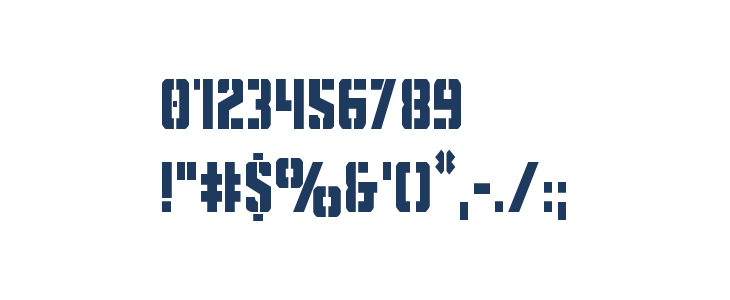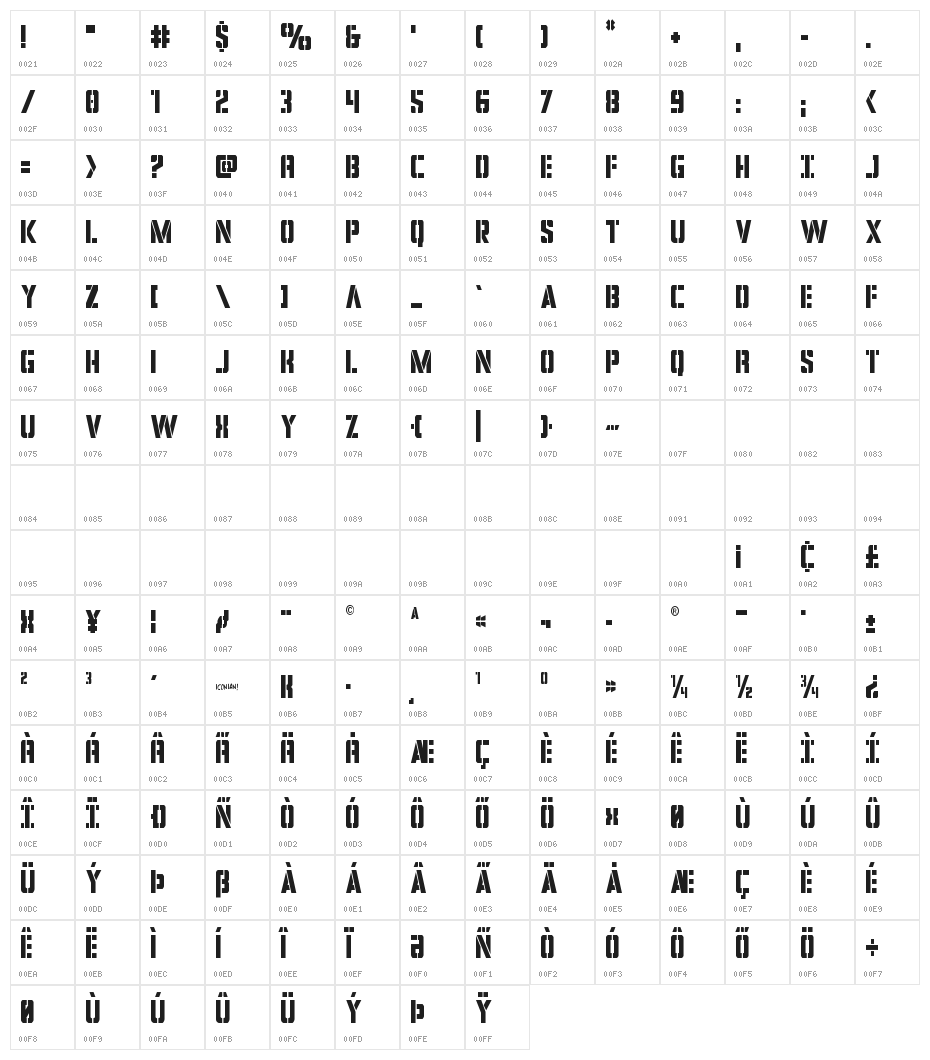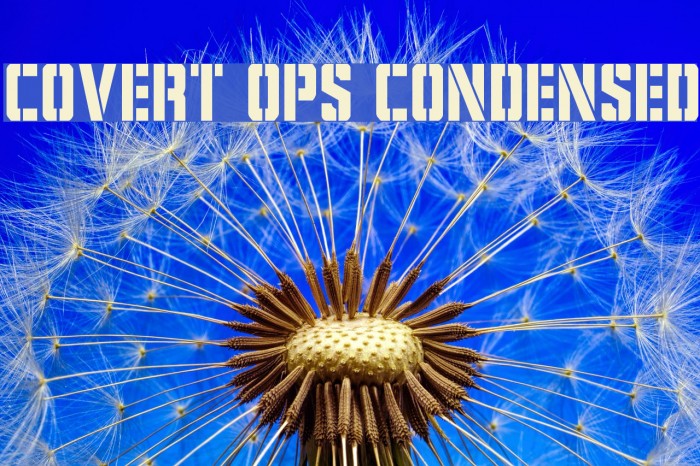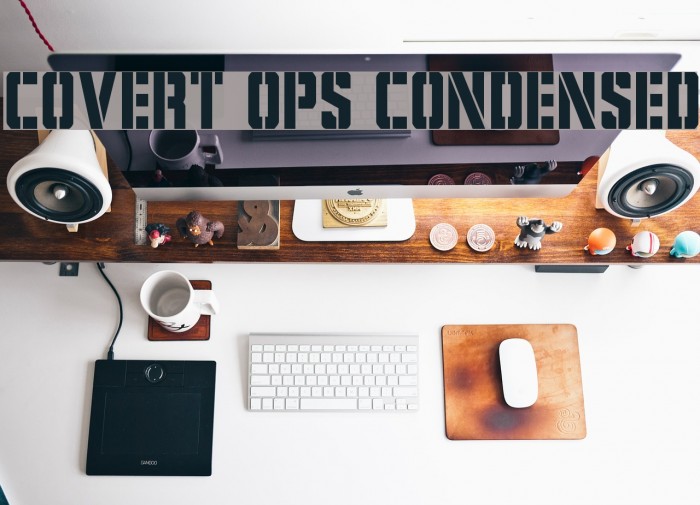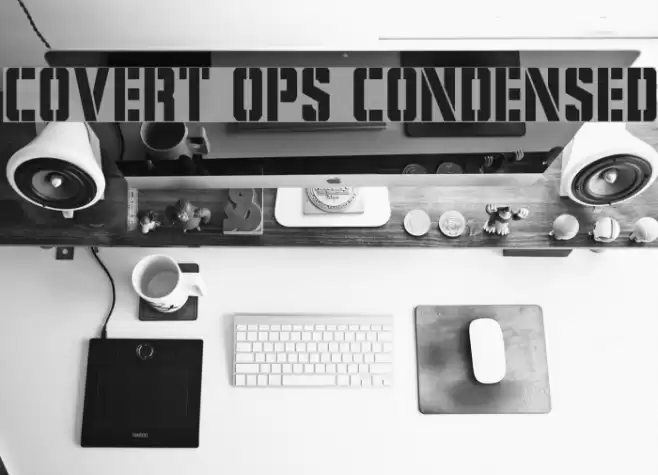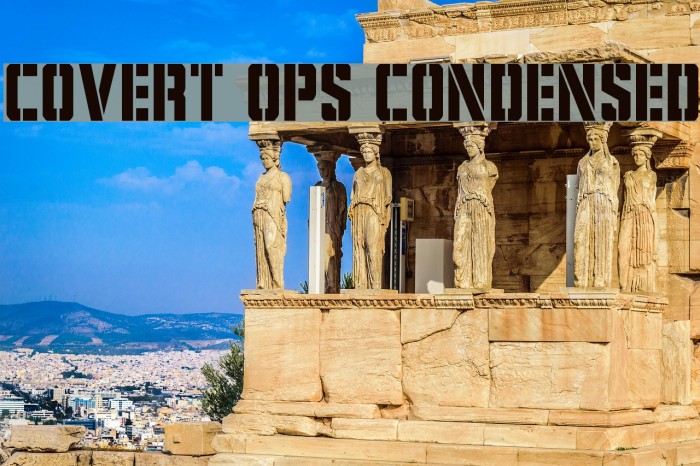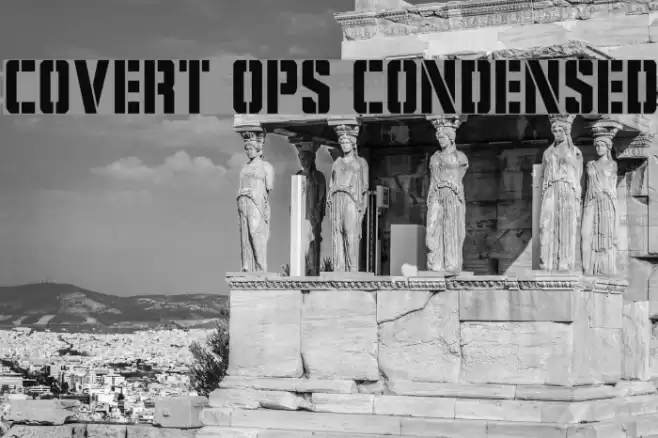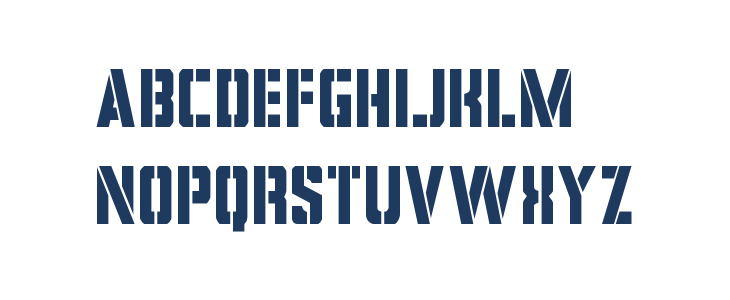
Covert Ops Condensed Font
Covert Ops Condensed Description
This font features a bold, condensed style with a distinct stencil-like appearance. The characters are designed with sharp, angular edges and consistent stroke thickness, giving it a strong, impactful presence. The uppercase and lowercase letters maintain a uniform height, contributing to its compact and structured look. The numbers and special characters follow the same design principles, ensuring a cohesive visual identity. This font's geometric and industrial aesthetic makes it suitable for projects requiring a modern and assertive typeface.
| Proposed Projects | Ideal for military-themed designs, posters, branding, and signage where a strong, industrial look is desired. |